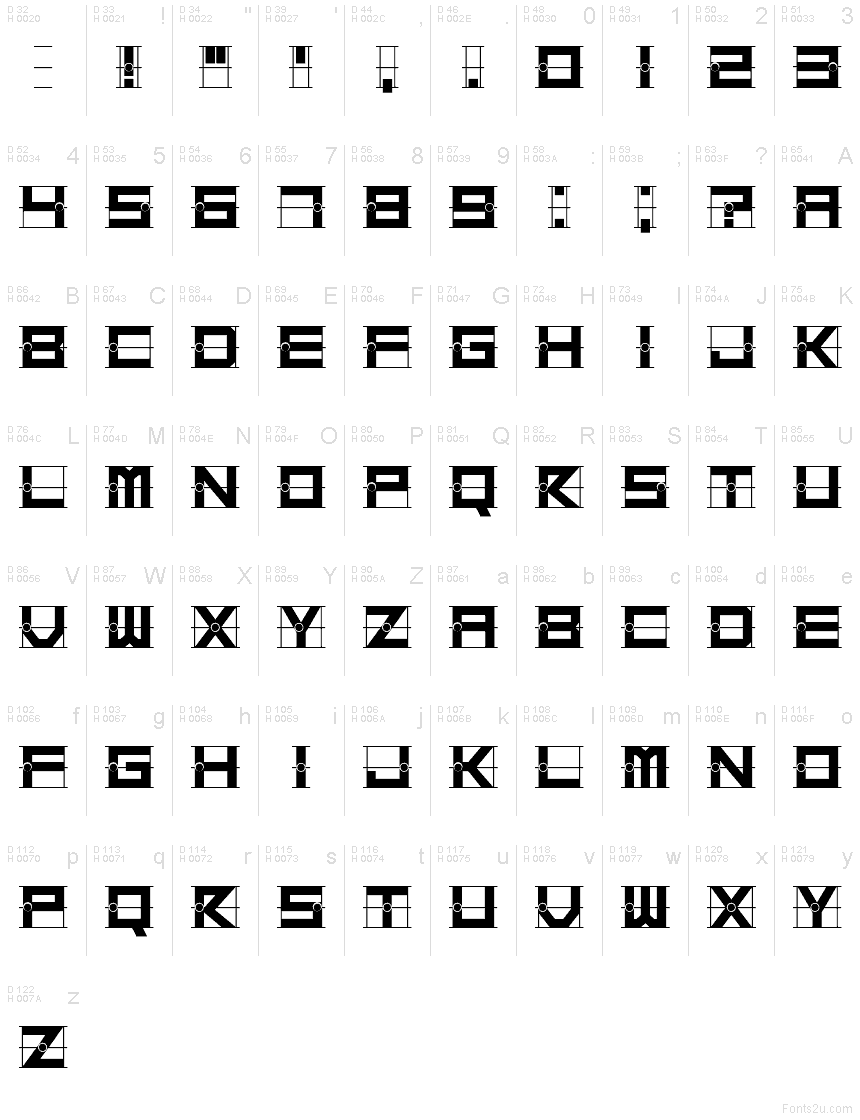
Target Regular
Target font by Vladimir Nikolic is a techno display font of expanded width that uses geometric, modular, and symmetrical forms as its primary stylistic features. Dominated by angular elements with several other detailed quirks in the letters that instantly bring a high-tech futuristic feel to any project.
Target is not just an ordinary free futuristic font, but one made for headings, titles, posters, and signage. Other uses include covers (print/electronic), websites and apps designs (UI/UX), presentation slides design, movie/game props design role-playing games (RPGs), ads setup (print/web/social media).